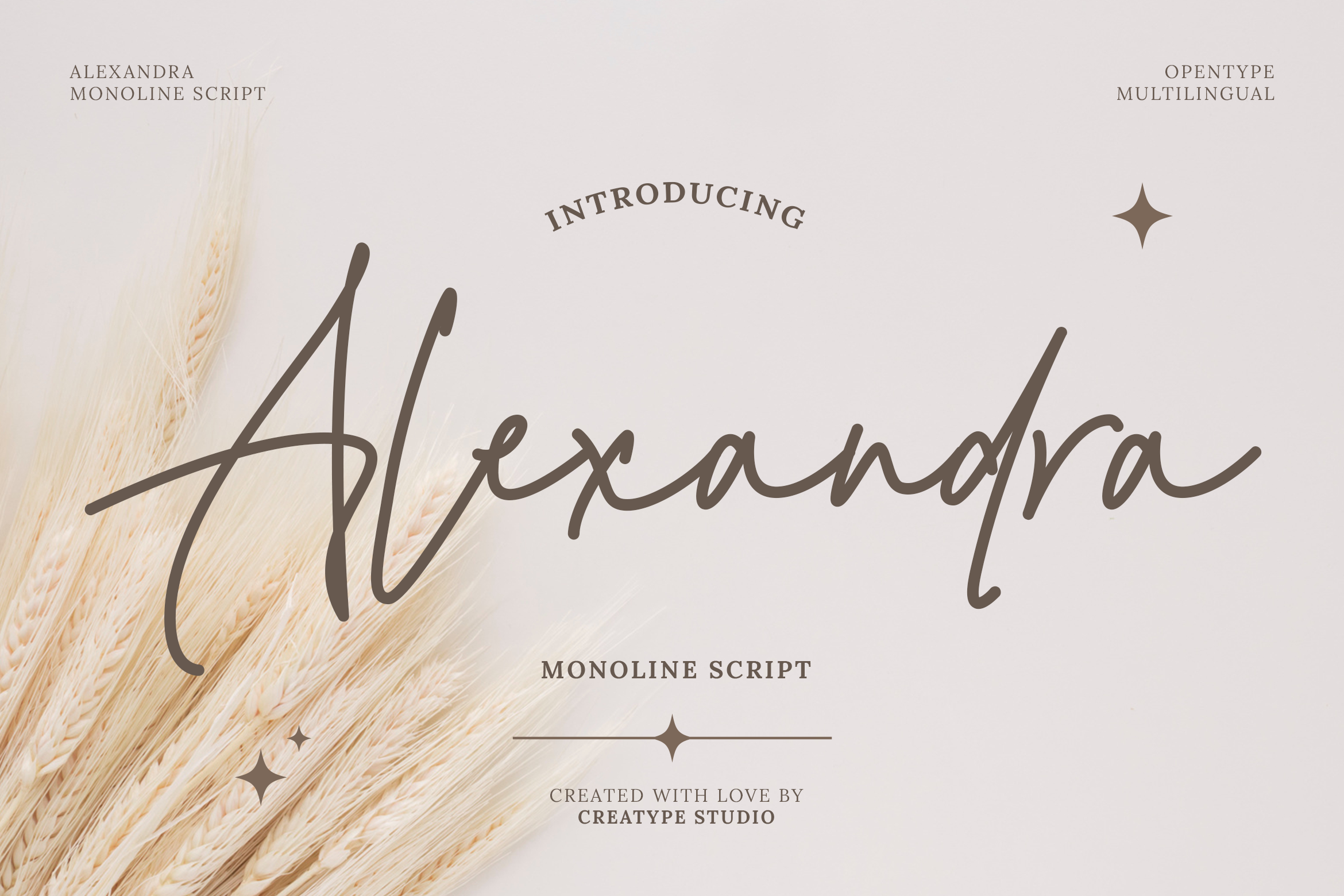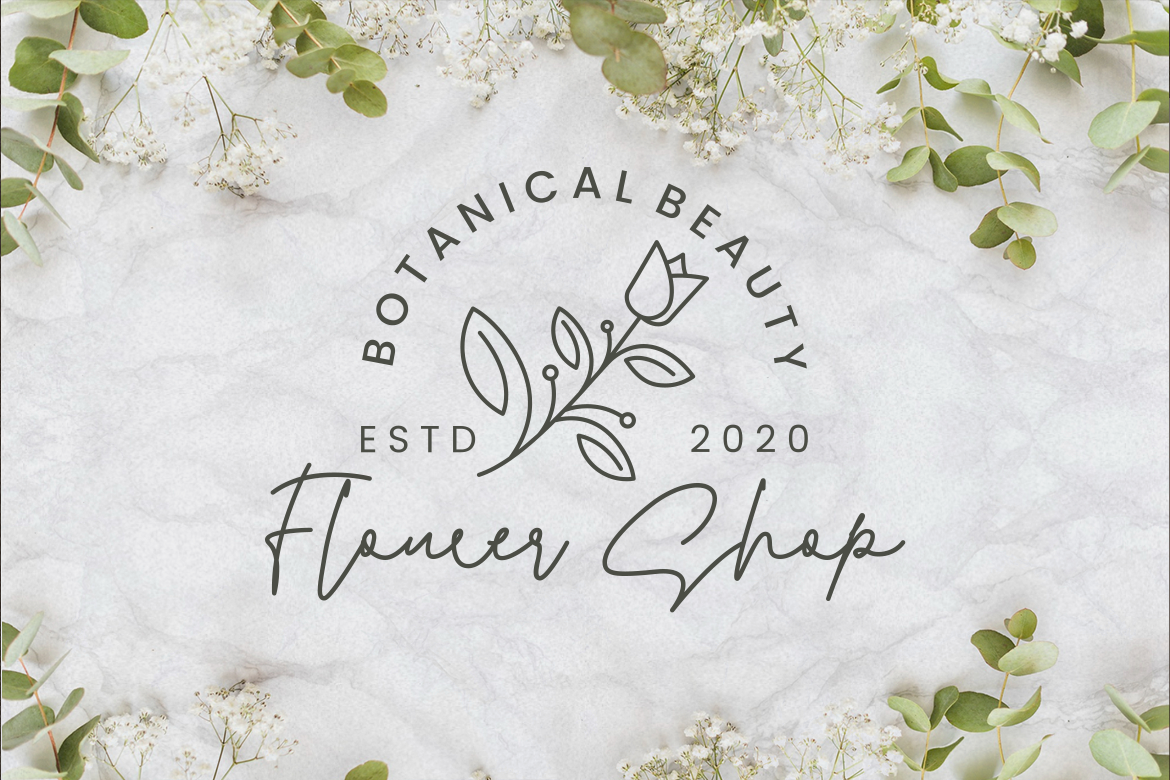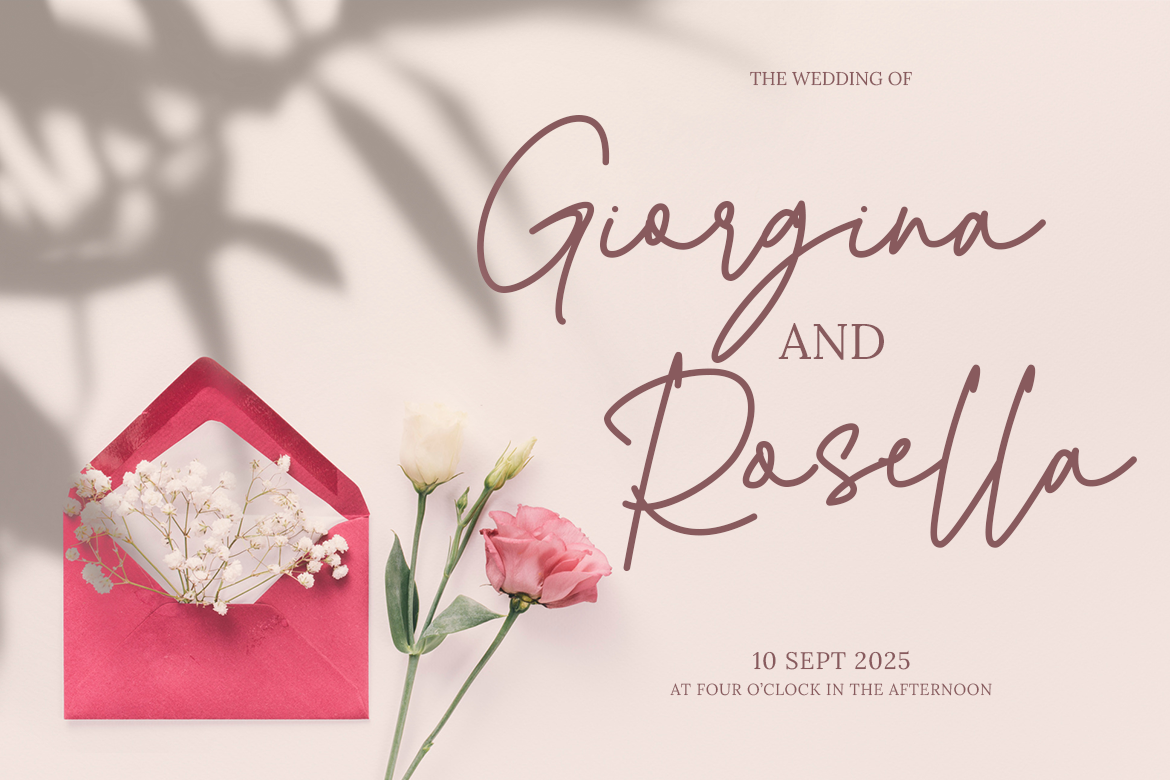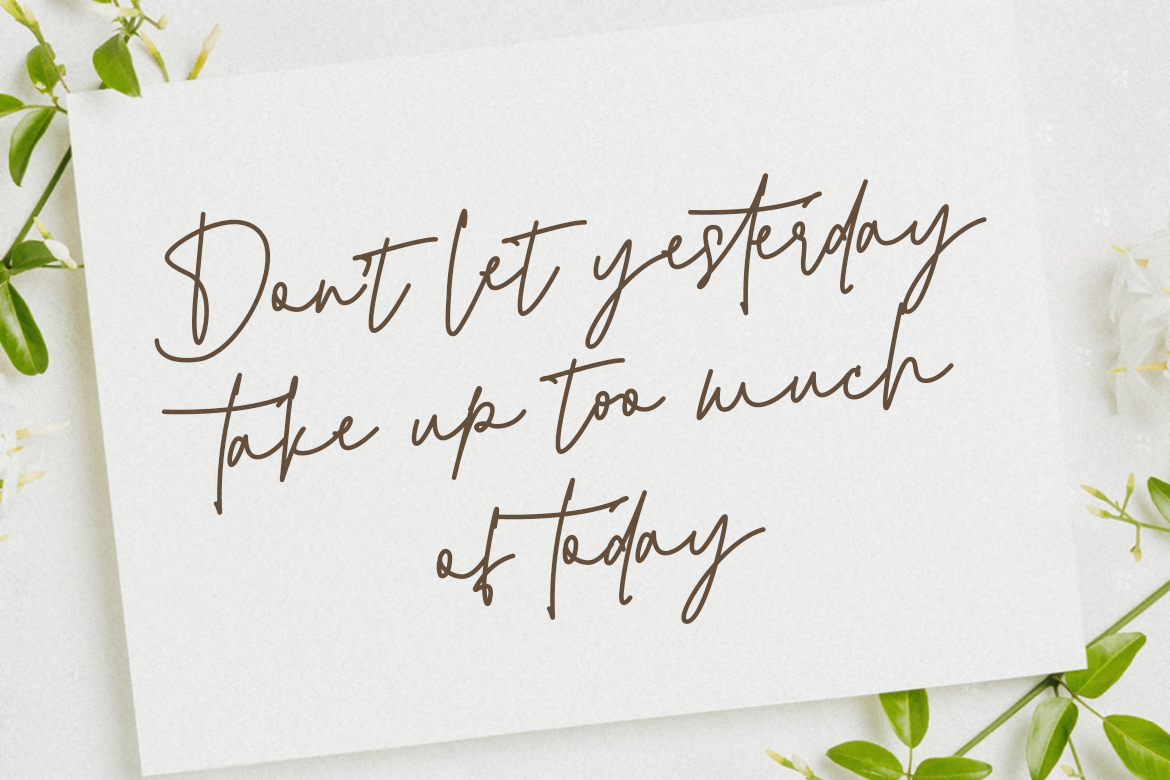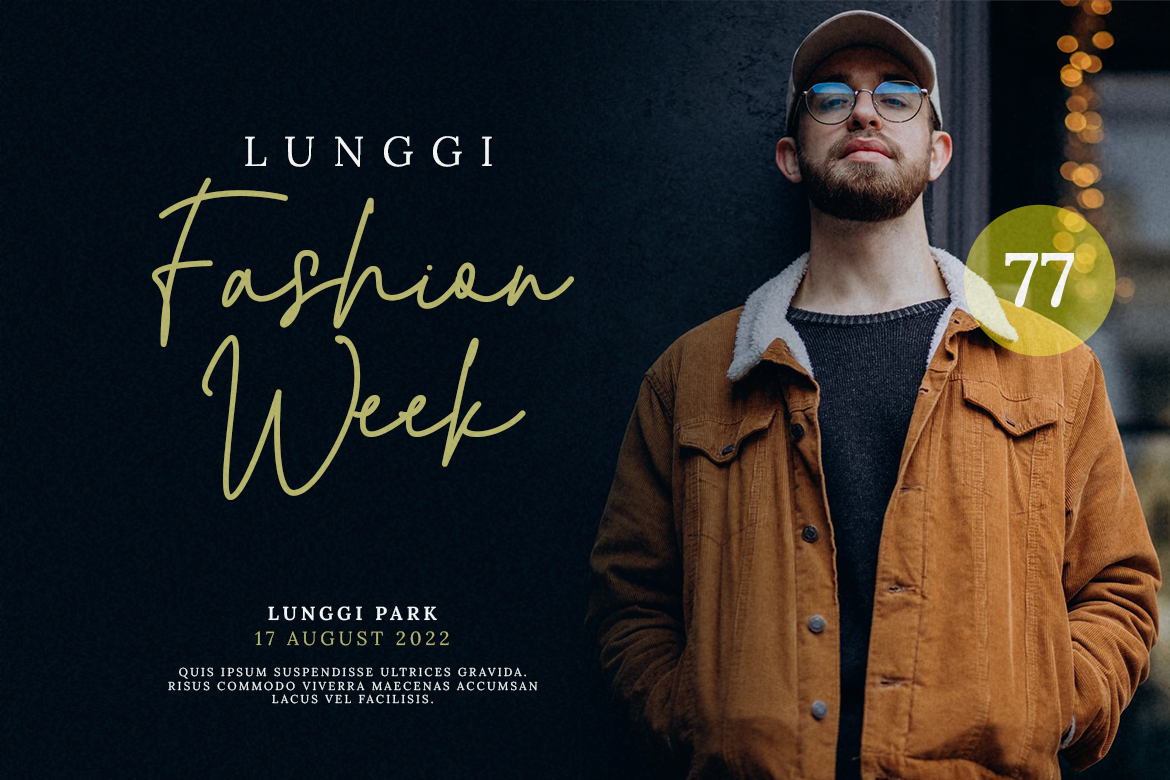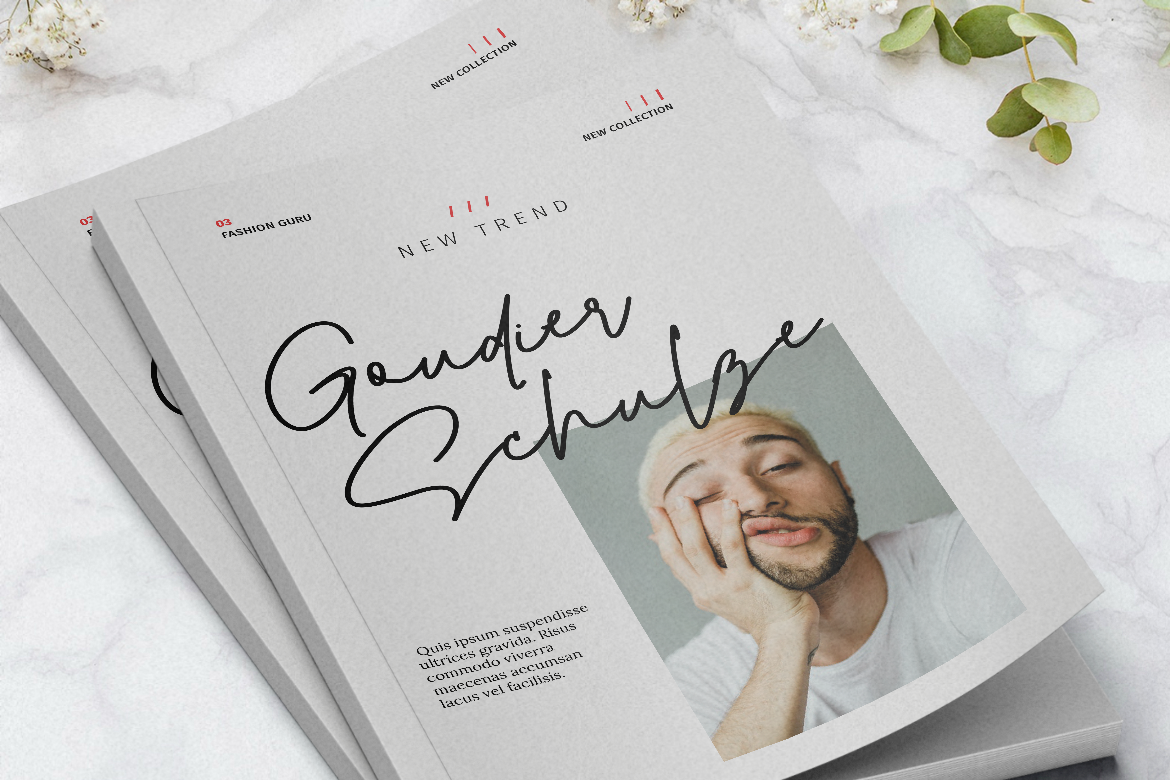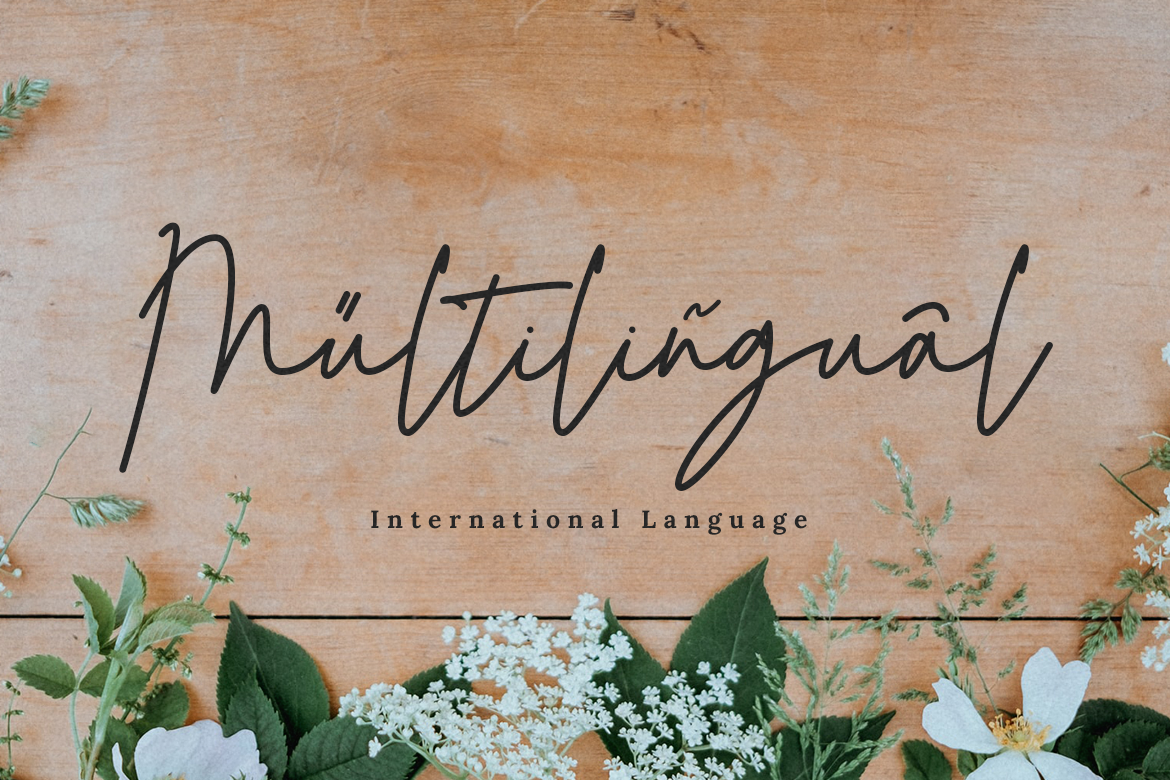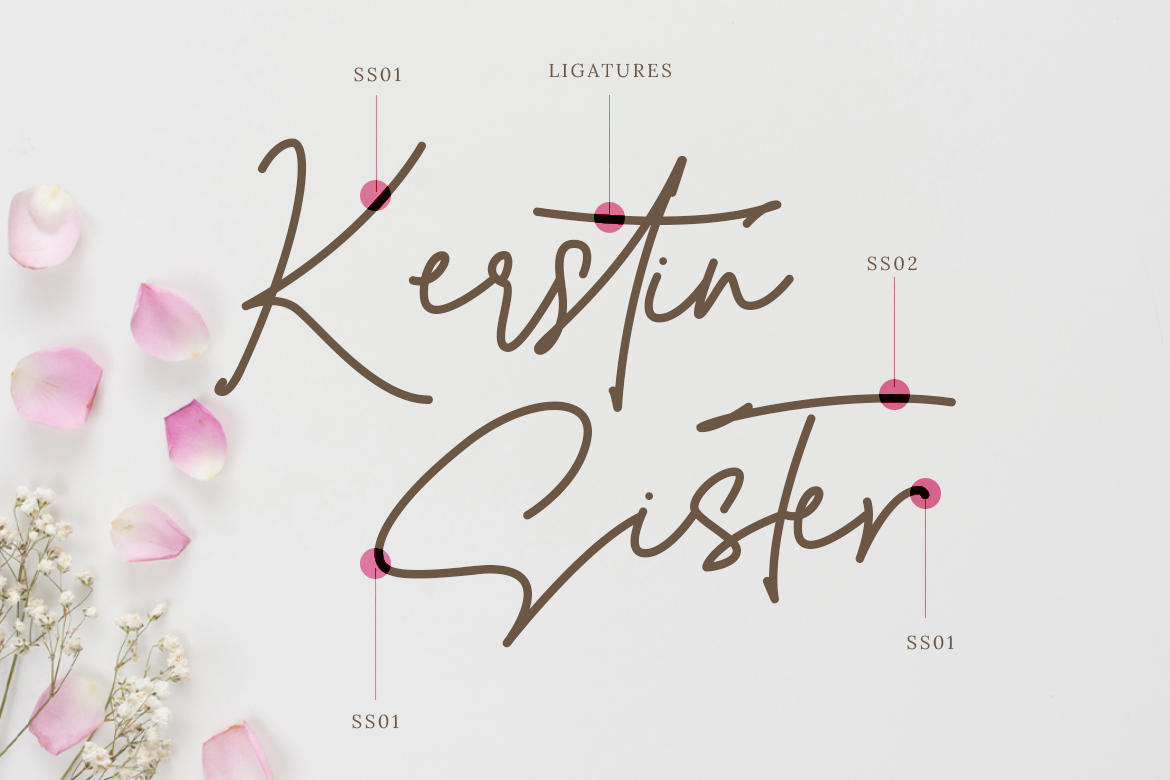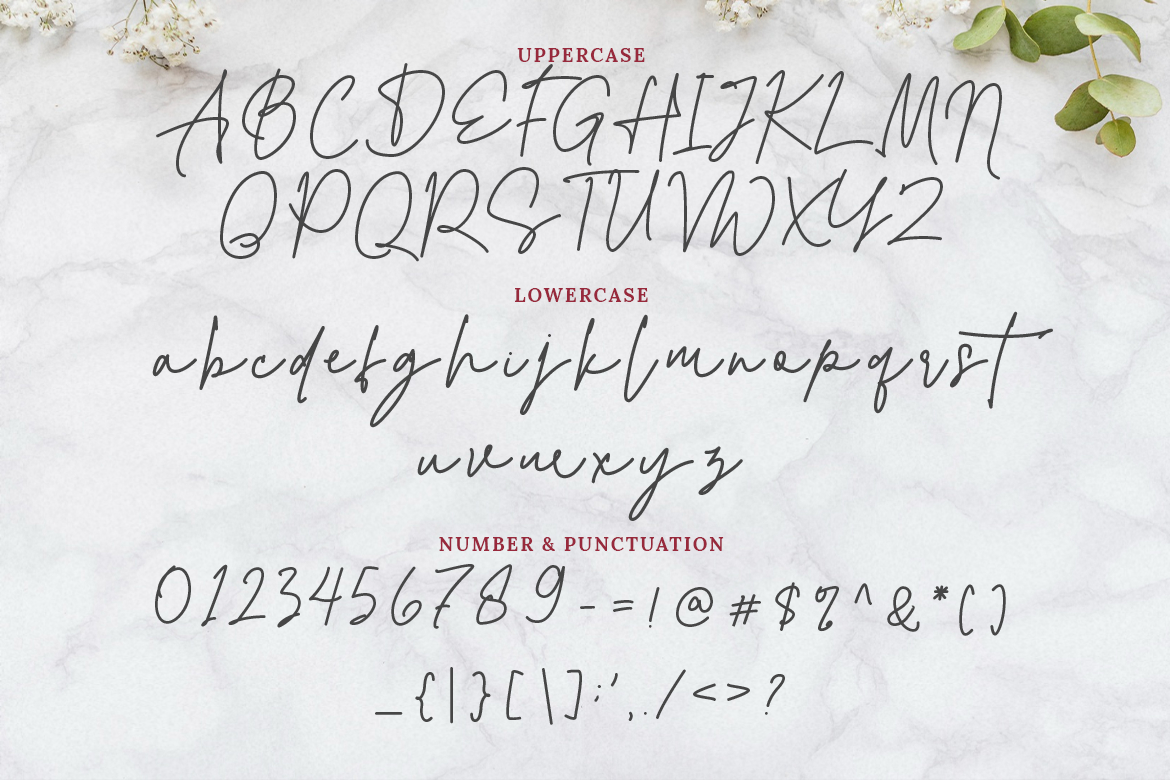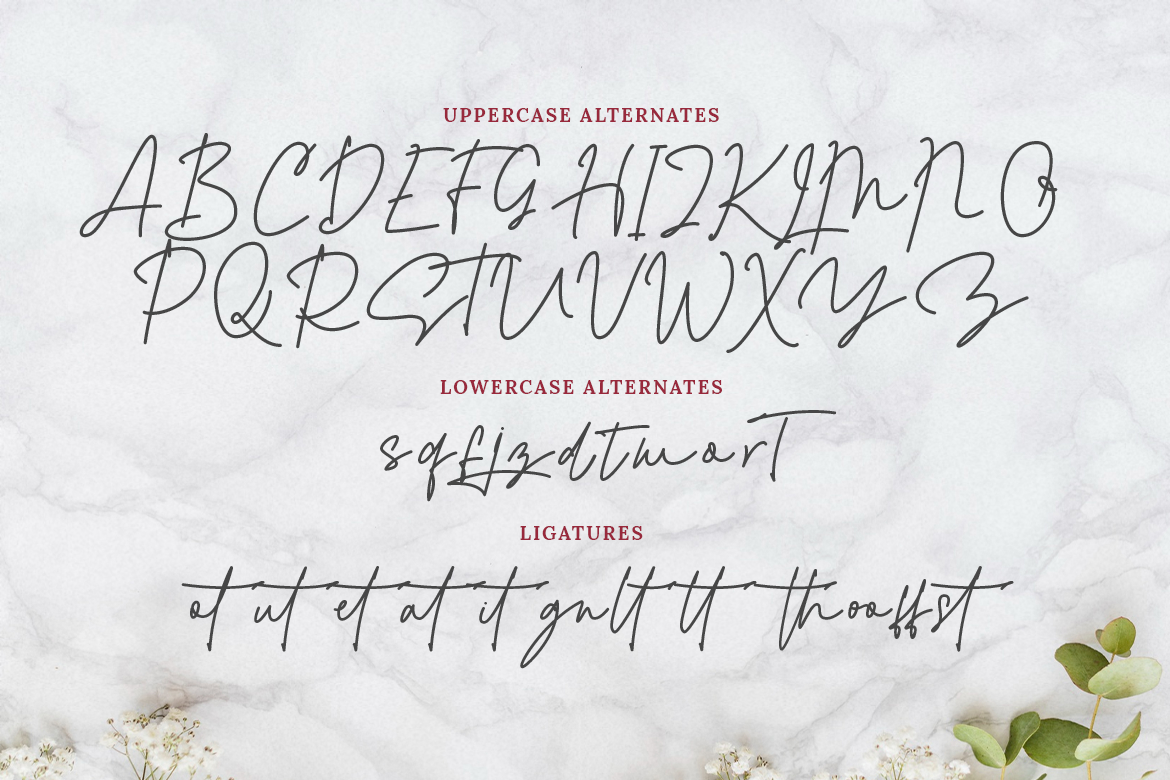
Alexandra Monoline Script
Alexandra is a stylish typeface that has sophisticated and versatile looks. It gives a chic vibe to your design project.
Alexandra is perfect for branding projects, logo, wedding designs, social media posts, advertisements, product packaging, product designs, label, photography, watermark, invitation, stationery and any projects that need handwriting taste.